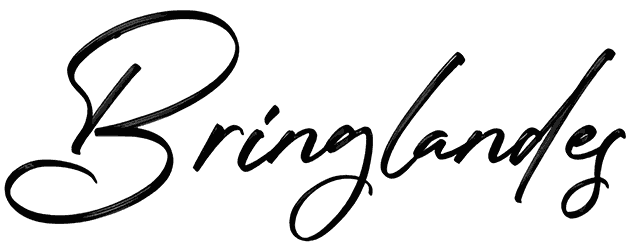
Brigend Signature Font
Let your words sound much more confident and real with the script letters of Brigend Signature, and thank us later. After all, you can’t go wrong with this signature font and its italic style. In fact, a cursive font like this can make anything sound sexy and pleasant.
You’re going to find it a perfect match for your wedding cards, quotes, legal contracts, personal letters, and basically wherever you want to capture the life-like touch of handwriting through printed text.
Brigend Signature Font By lemonthe